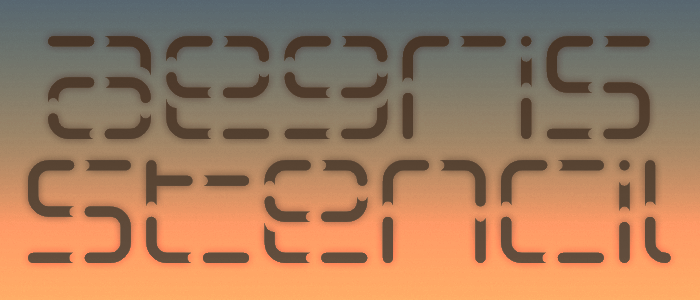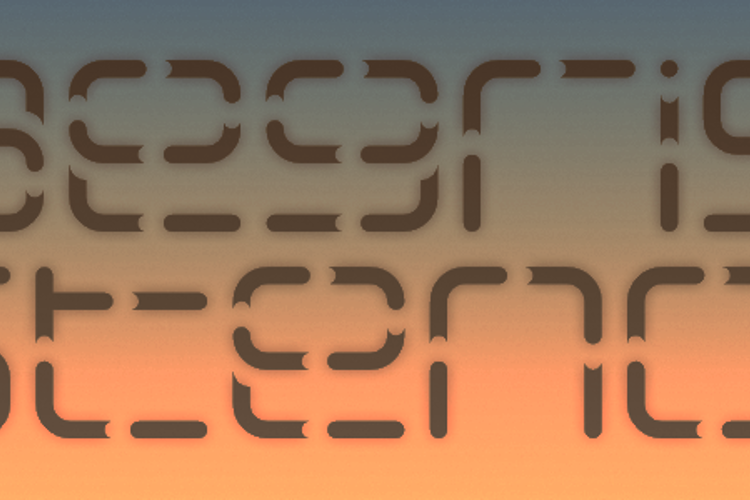
Aegris Stencil Font
About Aegris Stencil Font
An experimental sliced sans serif. Supports Danish, Dutch, English, Finnish, French, German, Hungarian, Italian, Norwegian, Portuguese, Spanish, and Swedish.
My goal here was to make a design which would result in an extremely compact and durable physical stencil. If anyone ends up constructing this stencil, I'd love to see it! I don't own any CNC tech myself...